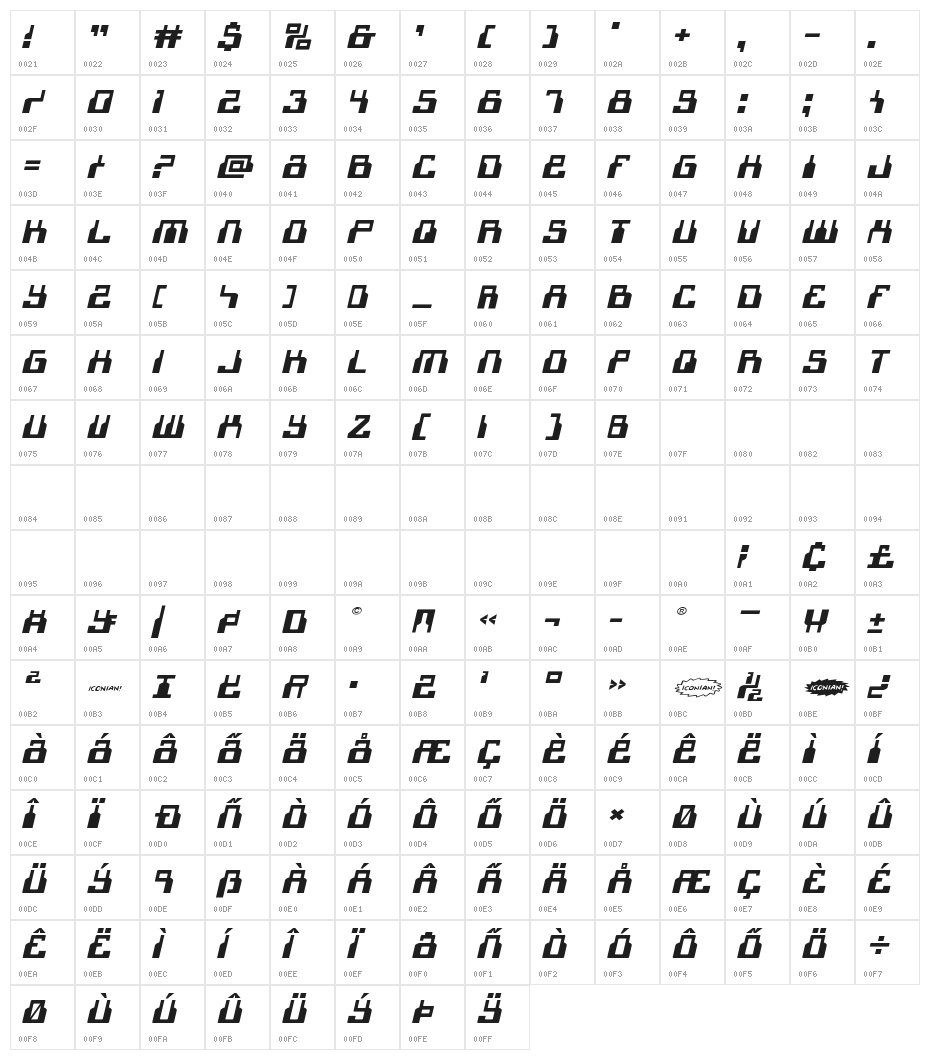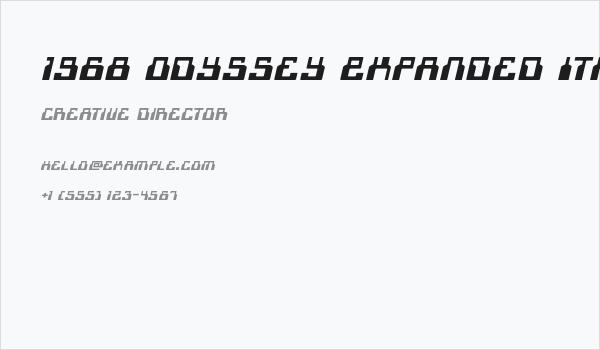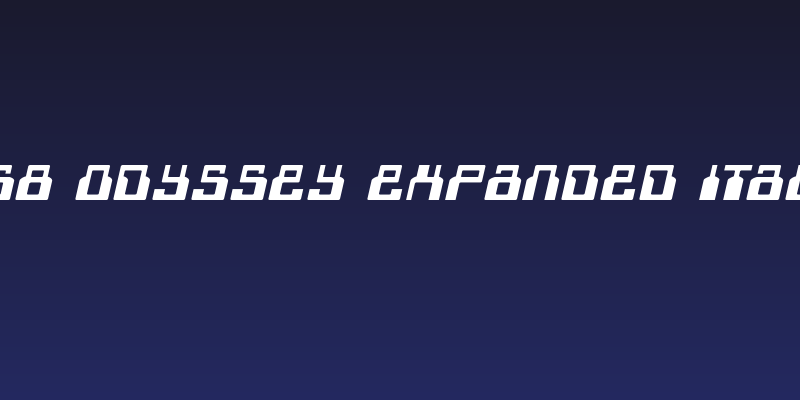
1968 Odyssey Expanded Italic Font
1968 Odyssey Expanded Italic Description
This font features a futuristic and geometric design with a distinct italic slant, giving it a dynamic and forward-moving appearance. The characters are bold and expanded, with sharp angles and clean lines that create a sense of modernity and sophistication. The uppercase and lowercase letters maintain a consistent style, while the numerals and special characters complement the overall aesthetic. The font's expanded width and bold weight make it highly legible and impactful, suitable for various design applications.
| Proposed Projects | Ideal for sci-fi themed projects, technology branding, video game titles, and modern posters. |